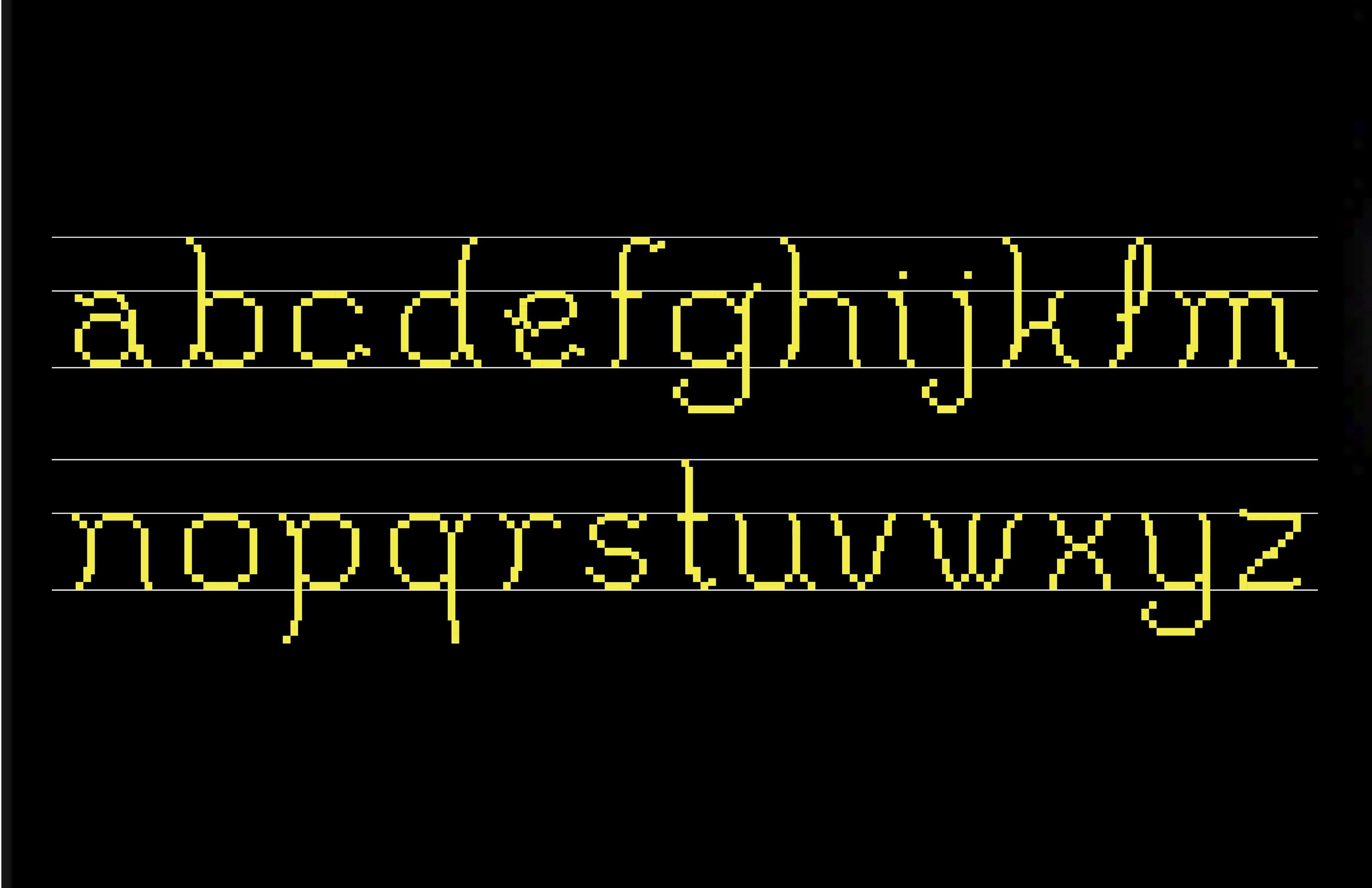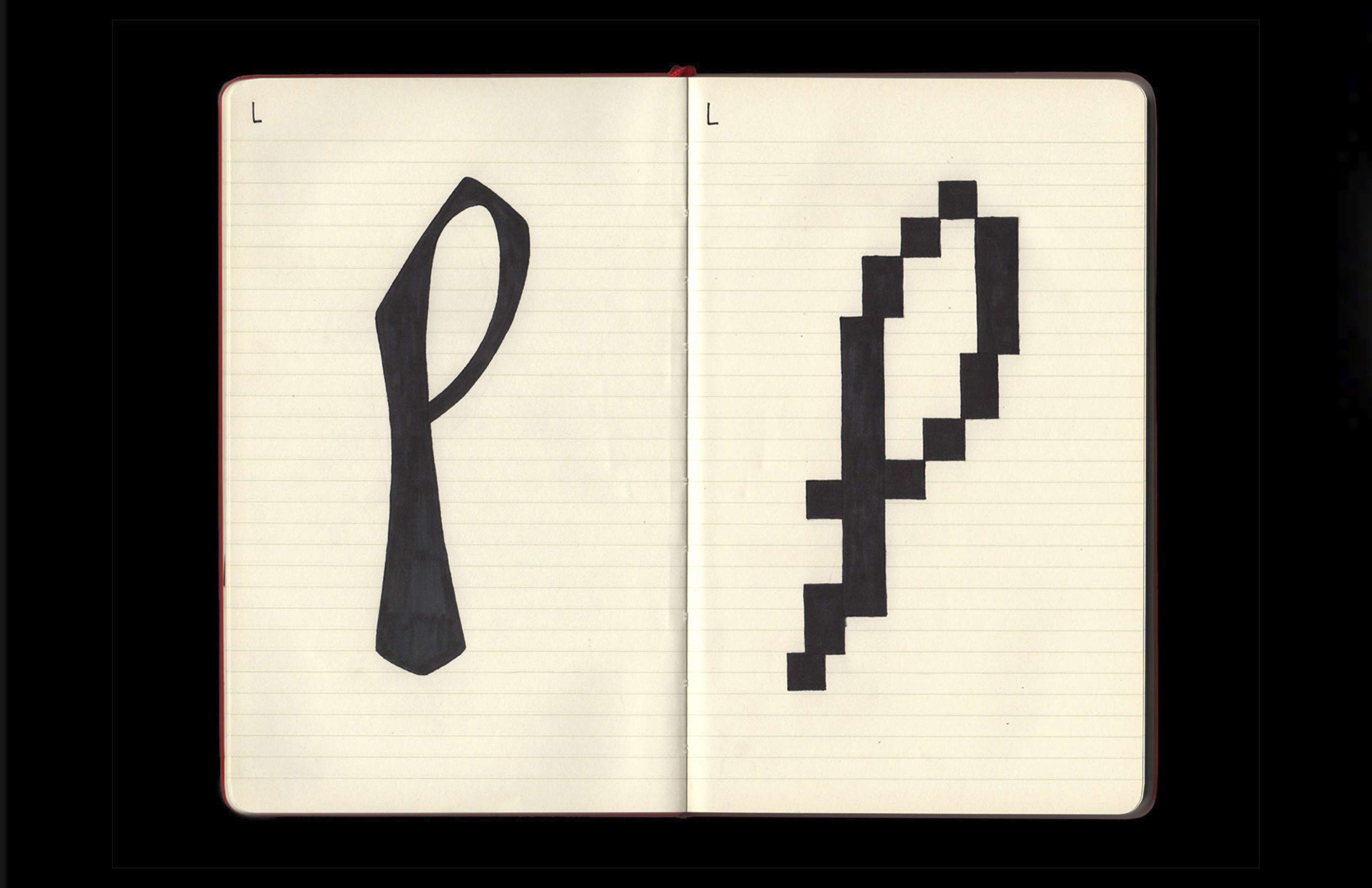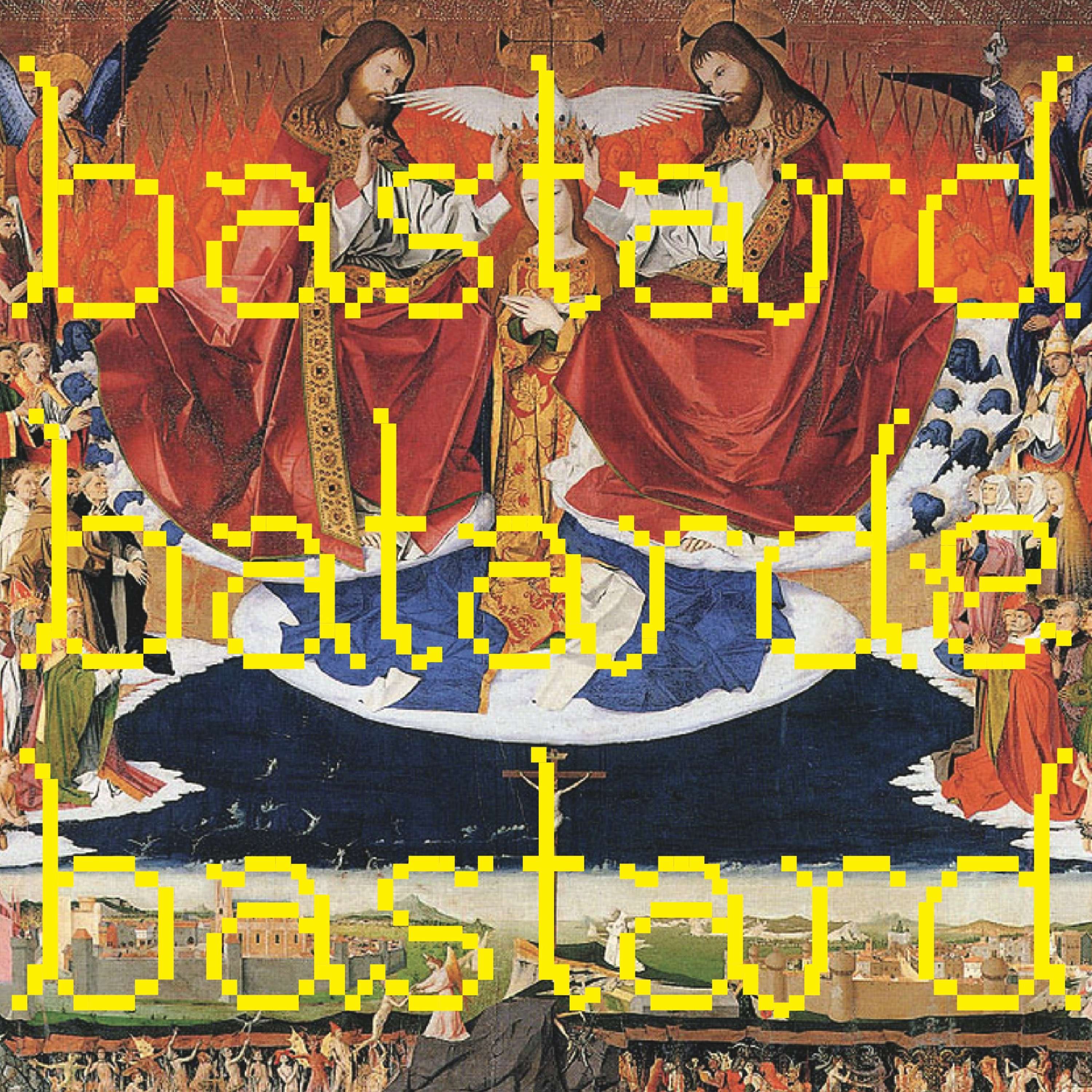
Bastard Typeface
A newfound fascination with type design, as well as the history of design as a whole, led me to begin the process of creating my own typeface—a current work in progress. The basic forms of Bastard are derived from a French Gothic typeface, Batarde or Bastarda, a blackletter script. Bastard's name is derived from the original blackletter script's title, as well as from the melding of history with contemporary design and technology, shown via the bitmapped appearance and modernized forms.
Bastard Typeface by Lauren Frank